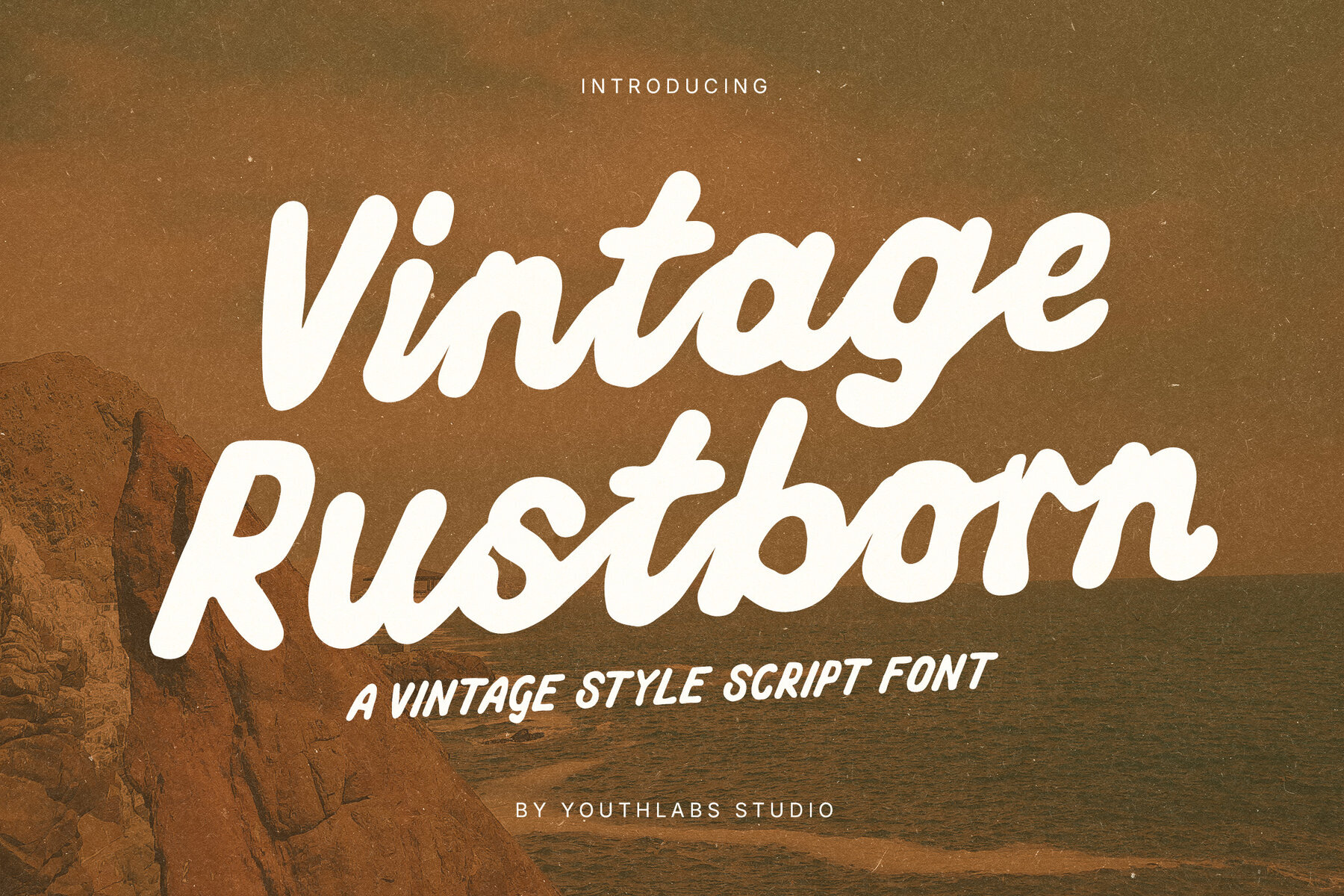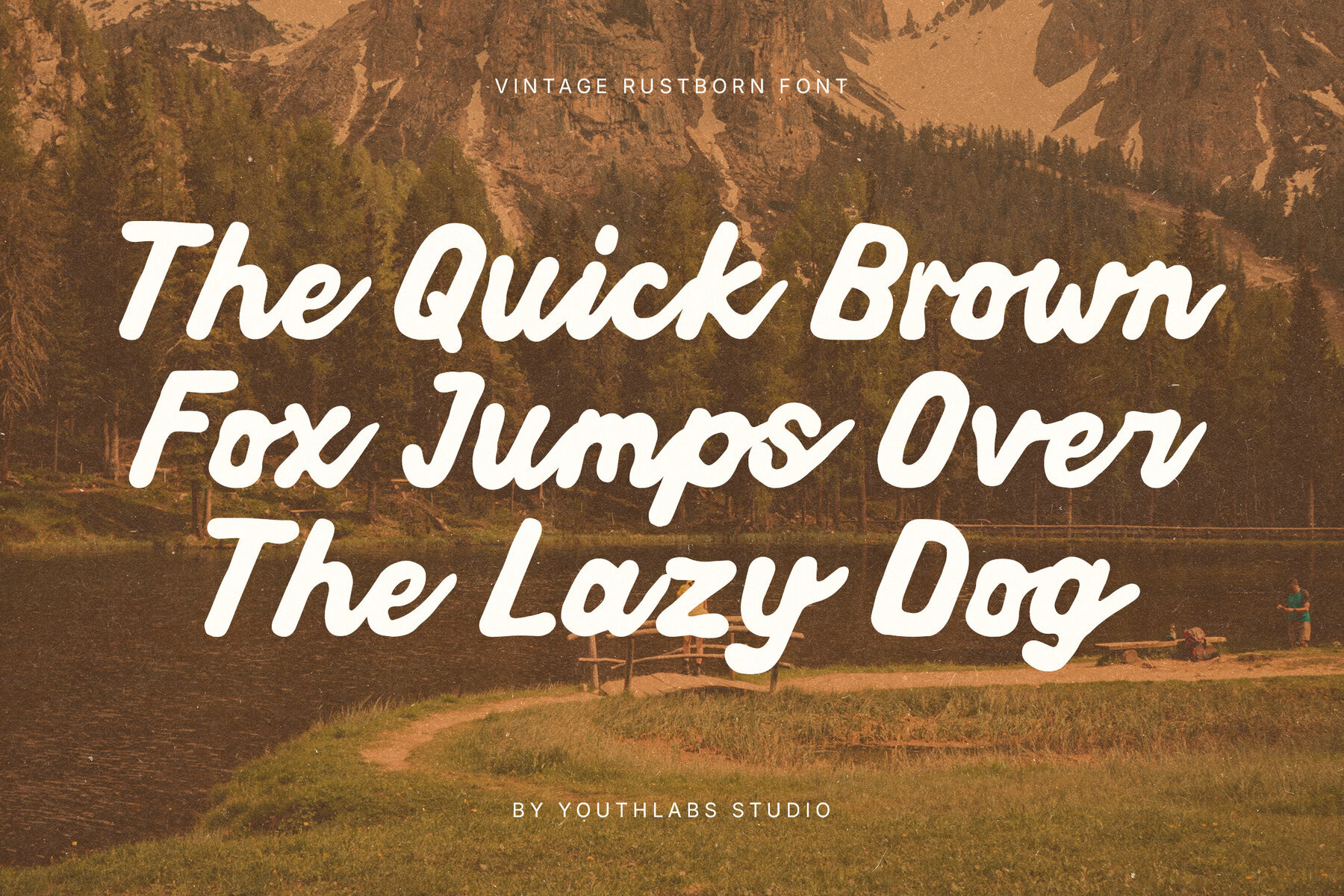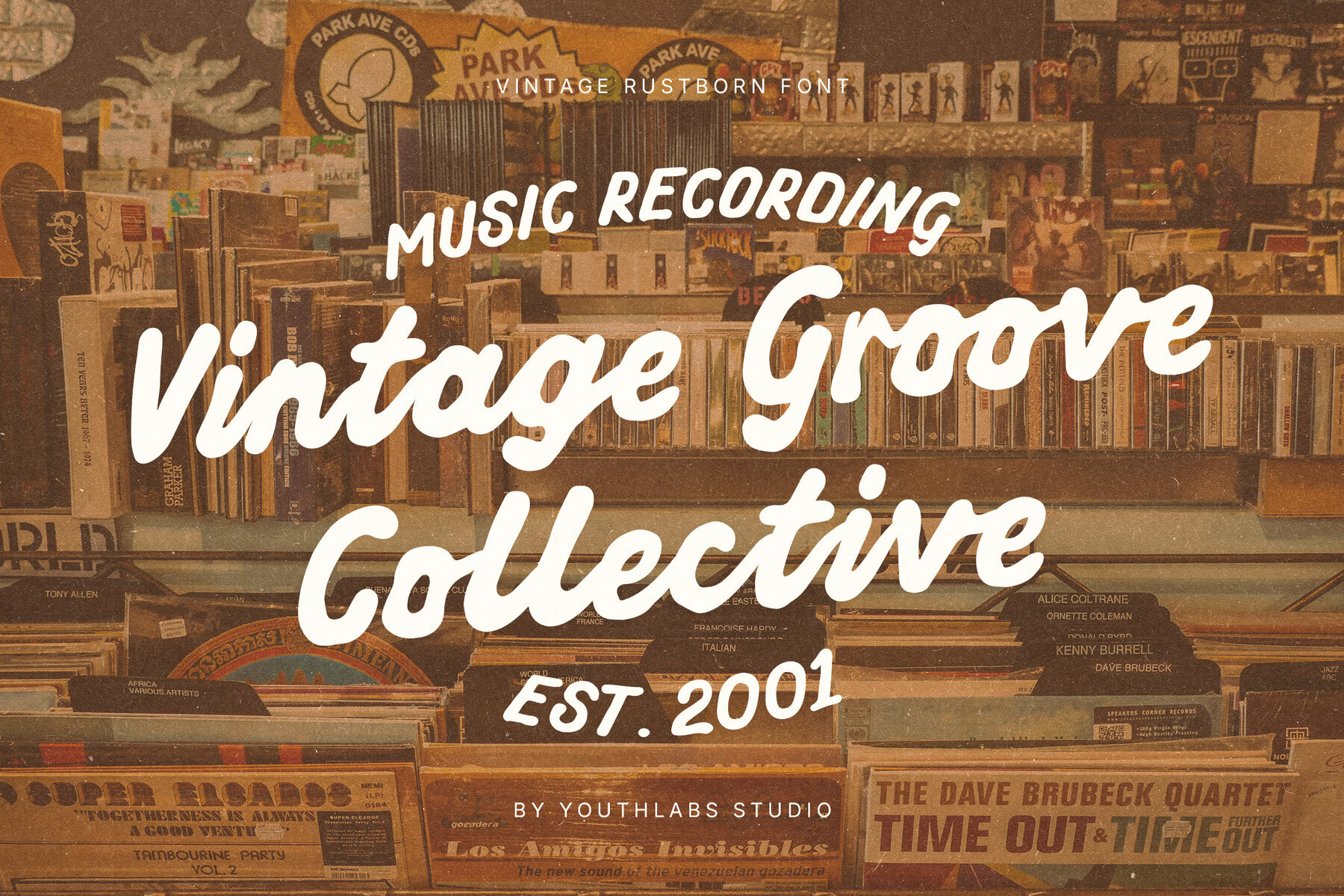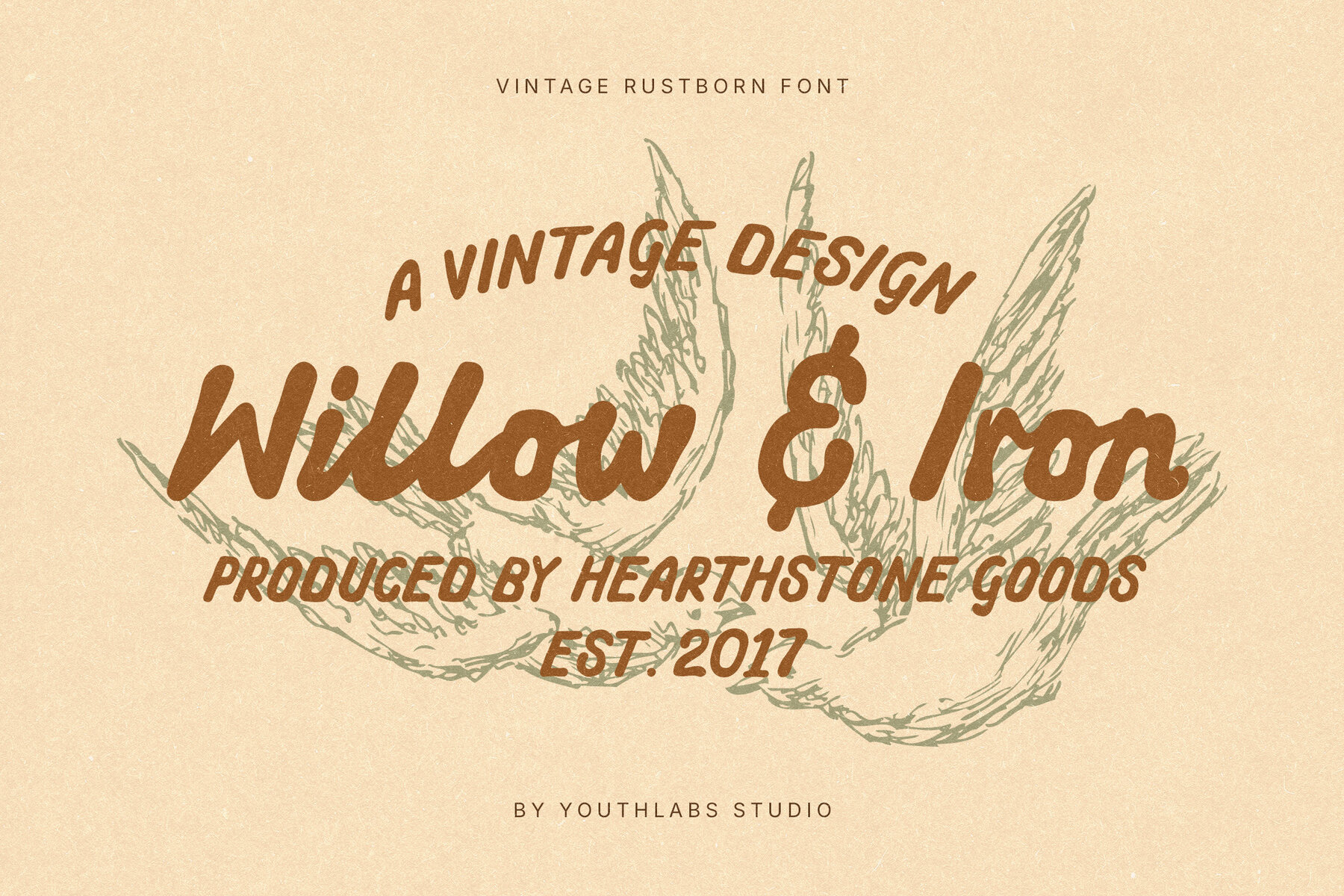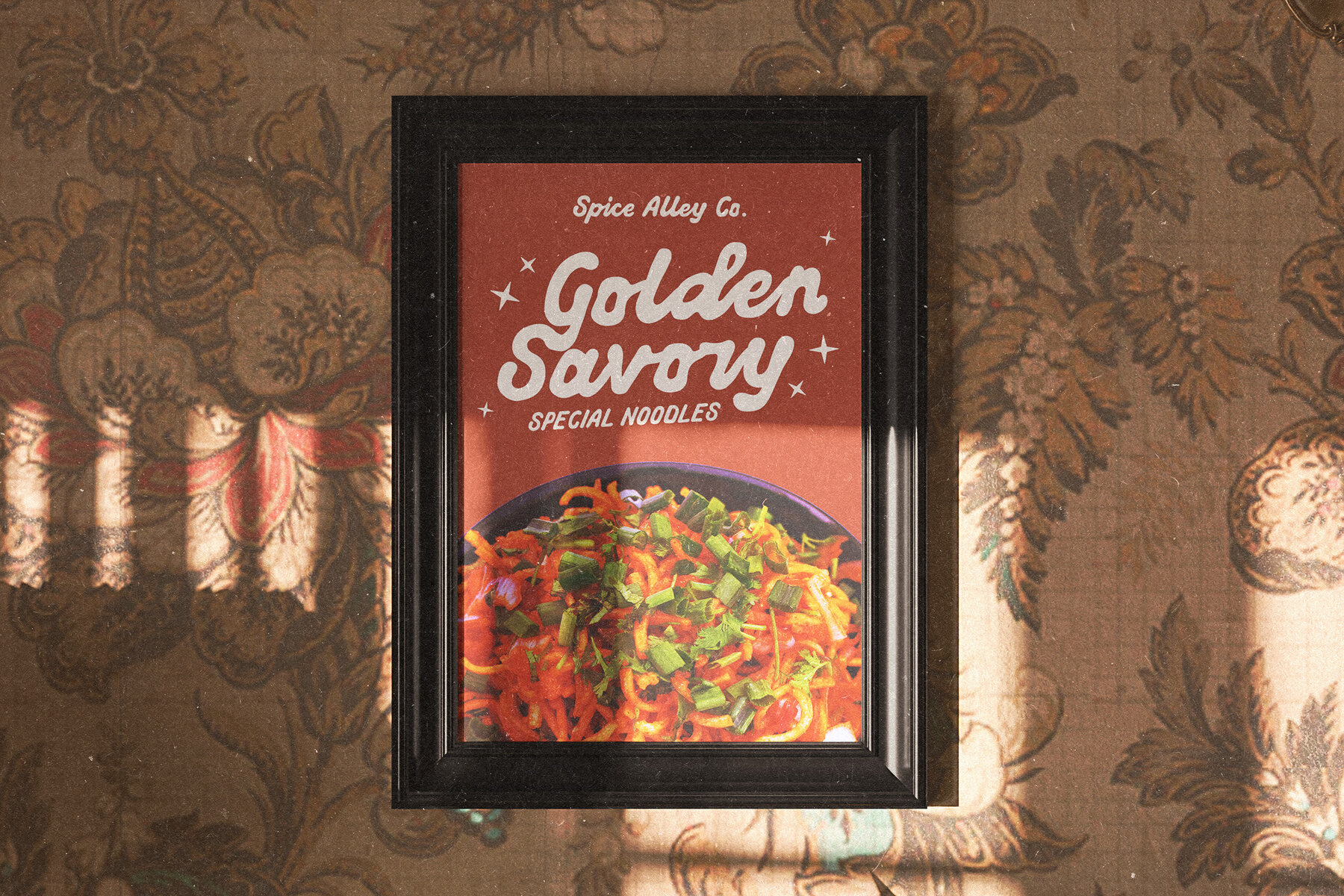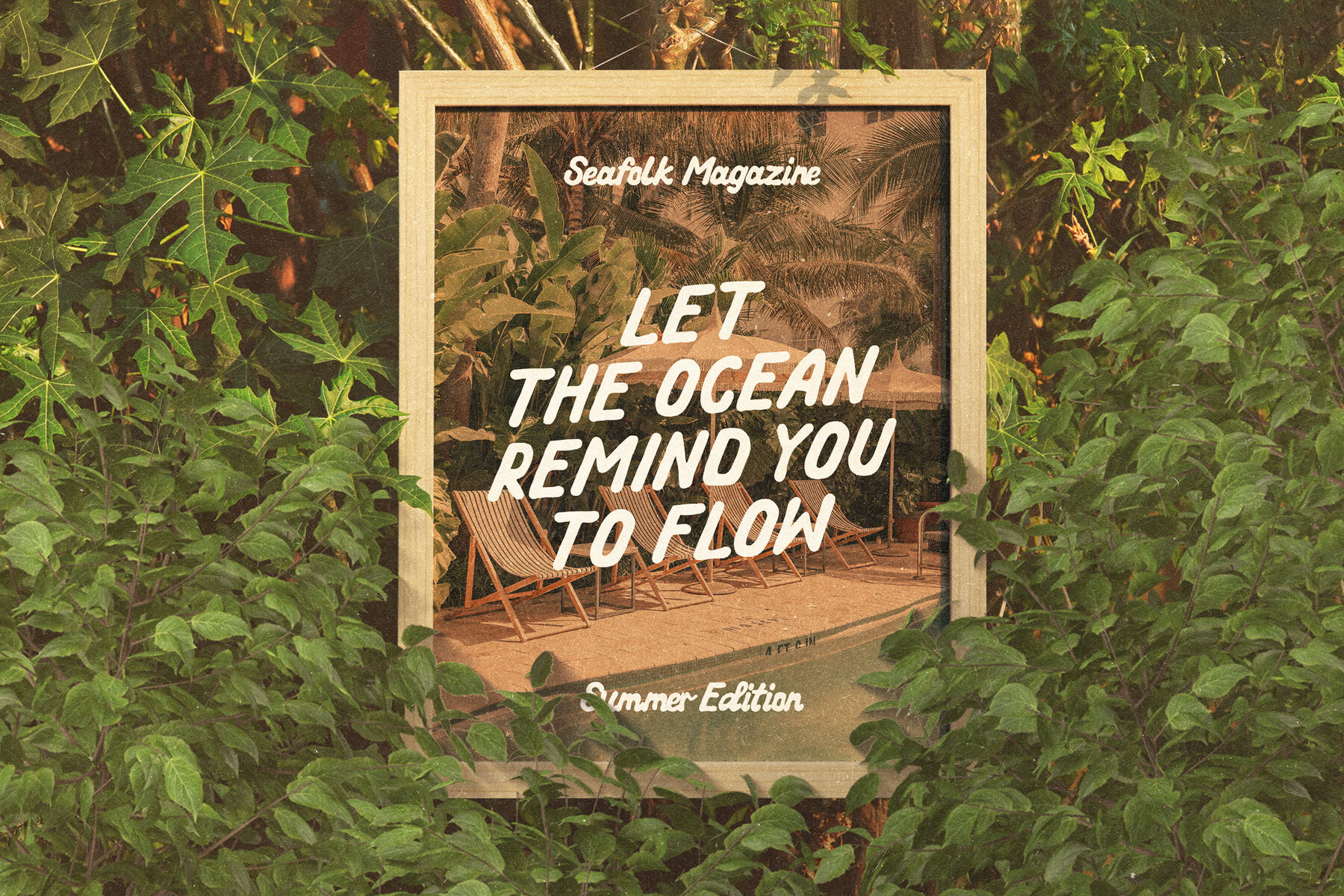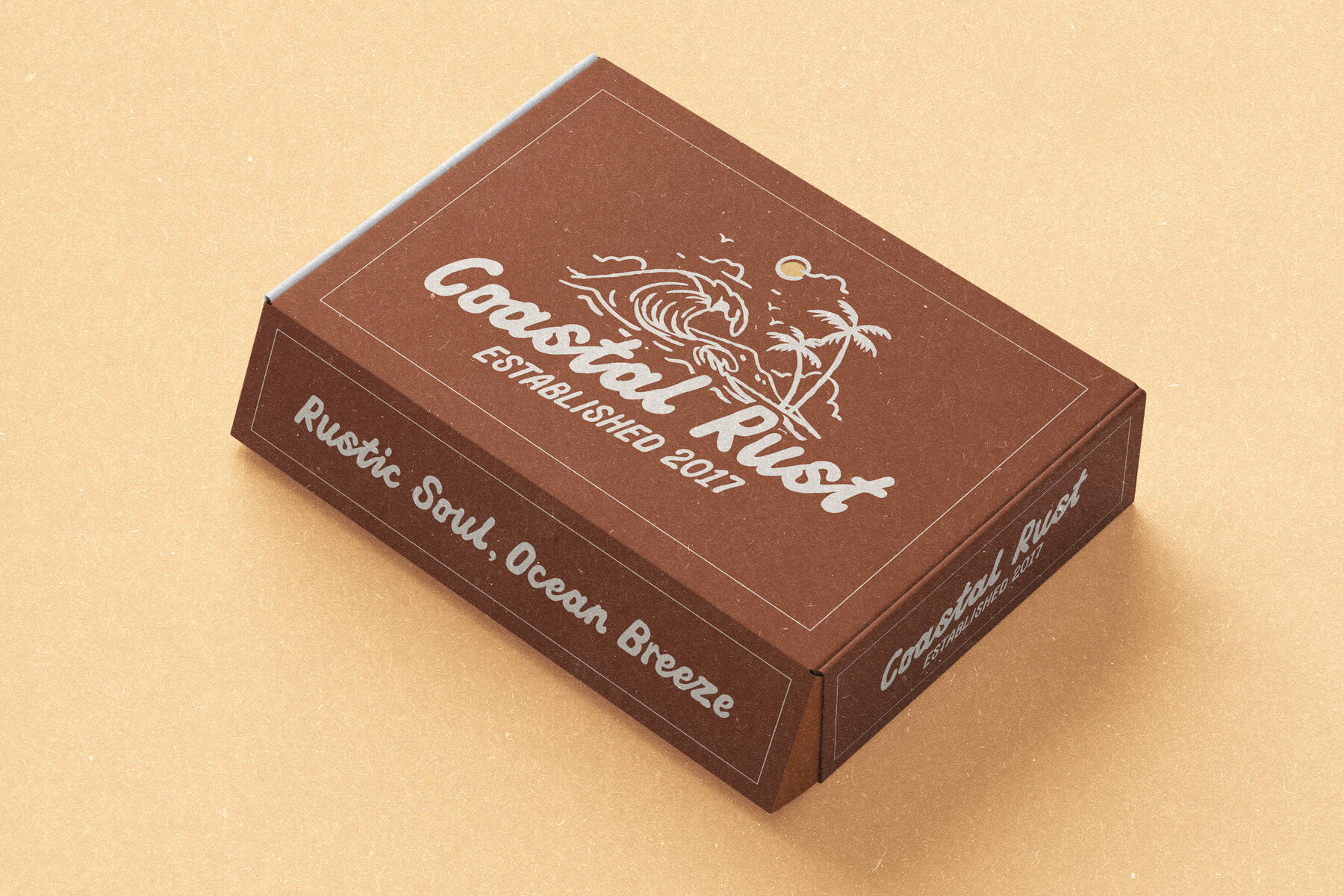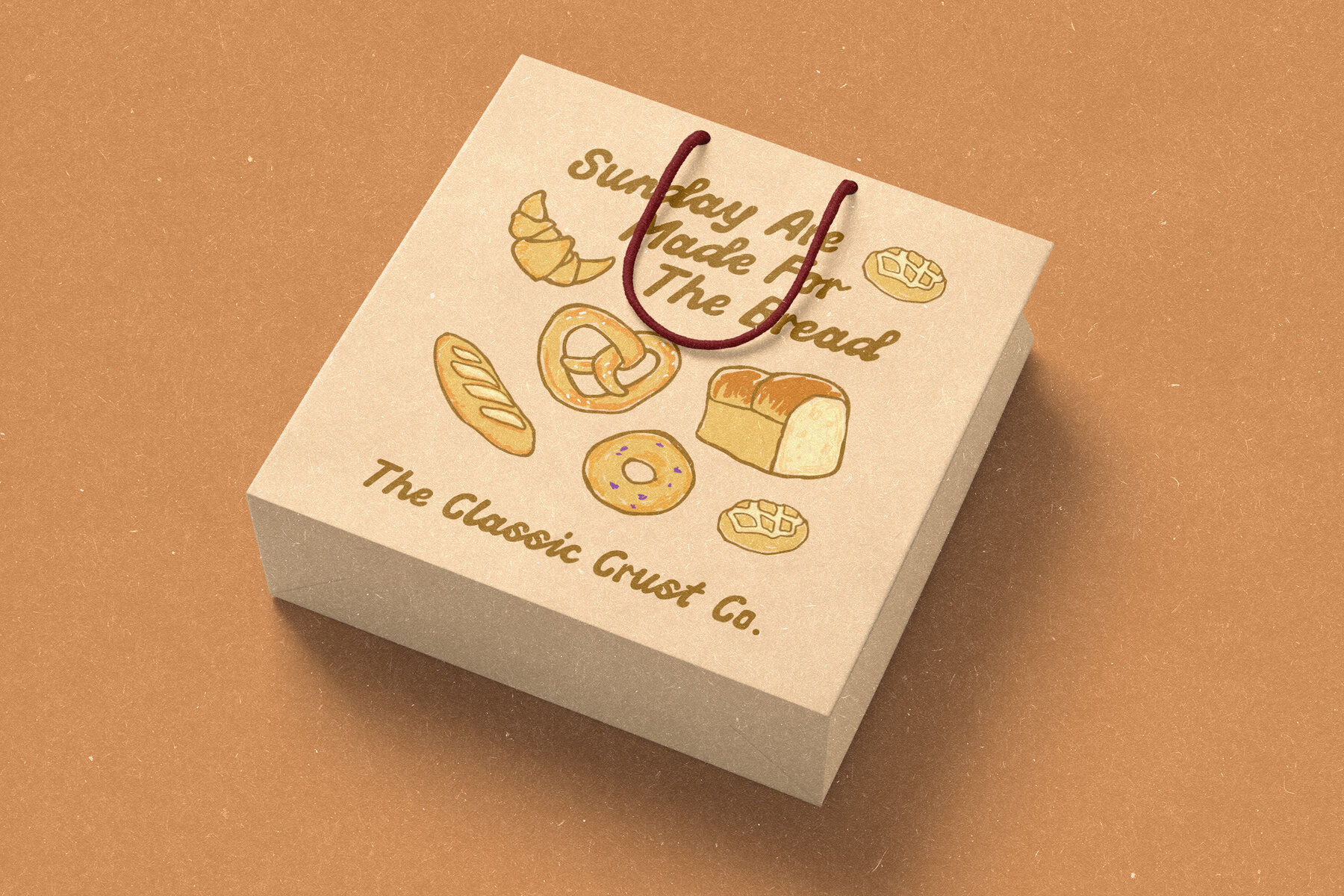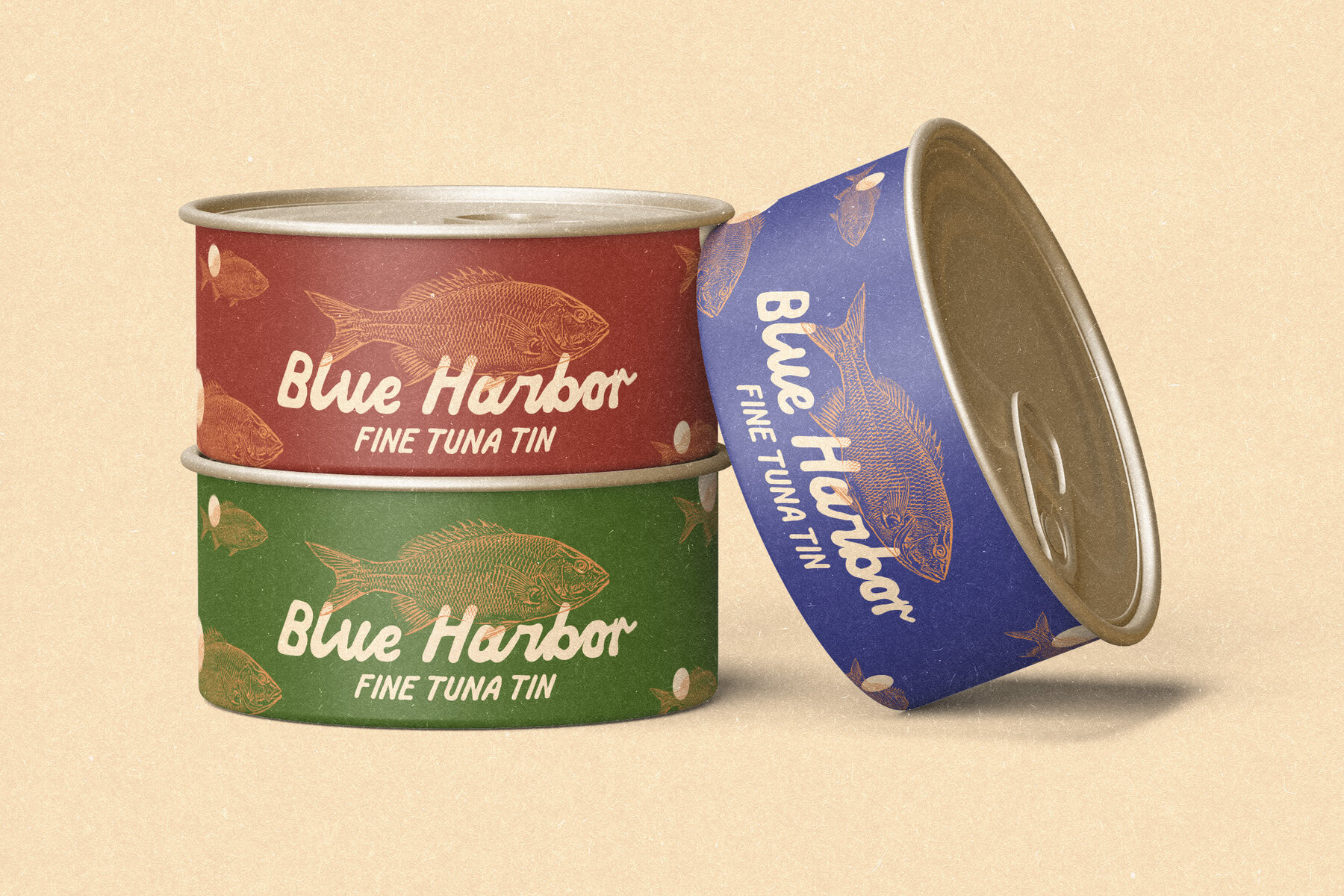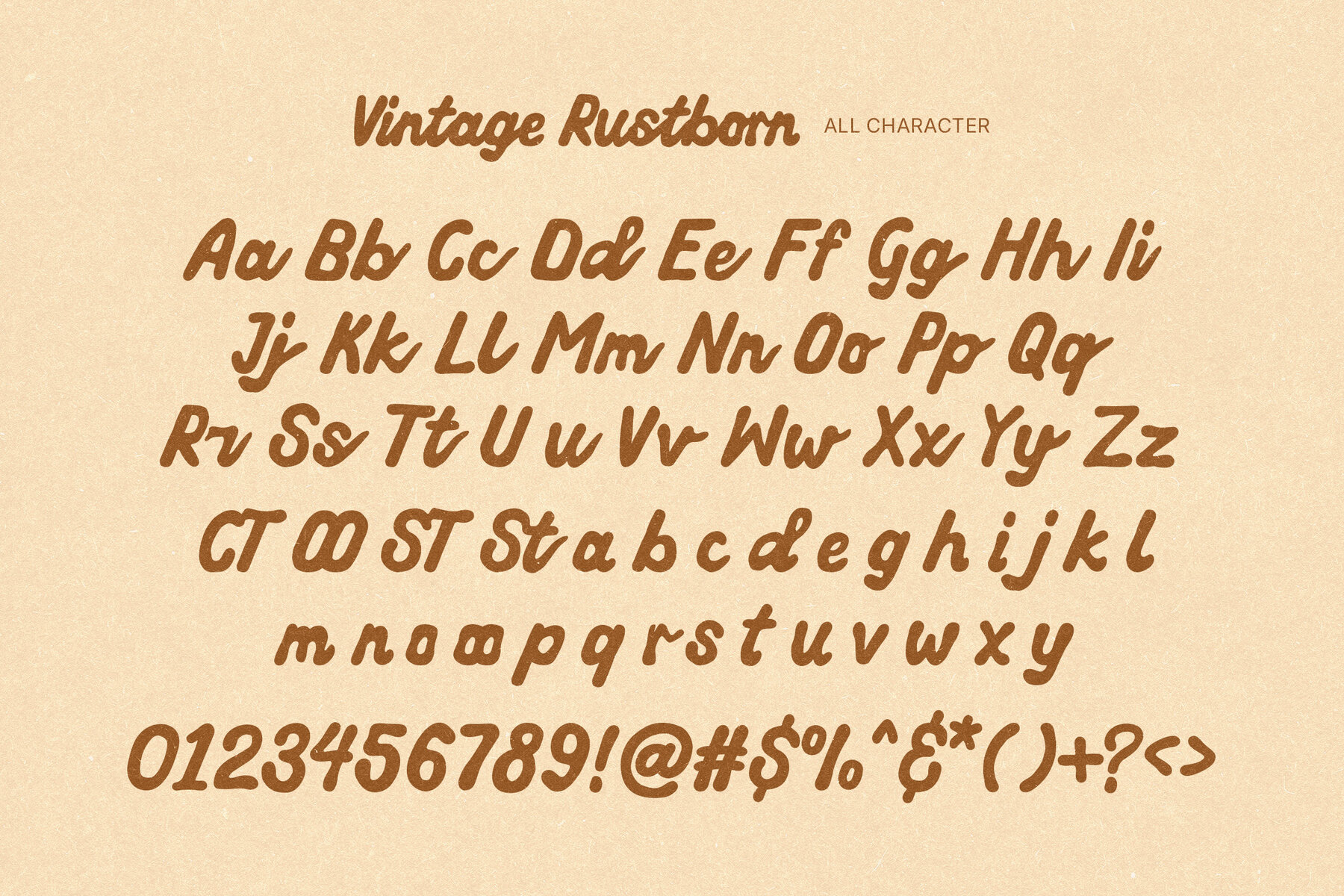
Vintage Rustborn Font
Vintage Rustborn Regular
Vintage Rustborn channels the energy of 1960s and 1970s signage with a bold script that carries both character and nostalgia. Its smooth curves and substantial strokes are reminiscent of classic brush lettering, delivering a lived-in aesthetic that remains inviting and warm. This font is well-suited for design projects that seek a timeless retro identity—think branding suites, editorial titles, or merchandise that calls for the familiarity of hand-lettered styles and retro coastal influences. Designed for visual impact across digital and print media, Vintage Rustborn’s textured finish and signature rounded forms provide clarity while upholding a sense of heritage. Whether you’re creating a restaurant logo, packaging for outdoor gear, or travel-inspired graphics, this font lends authenticity and flexibility to a variety of contexts.Vintage Rustborn: Retro Script Inspired by 1960s Signage